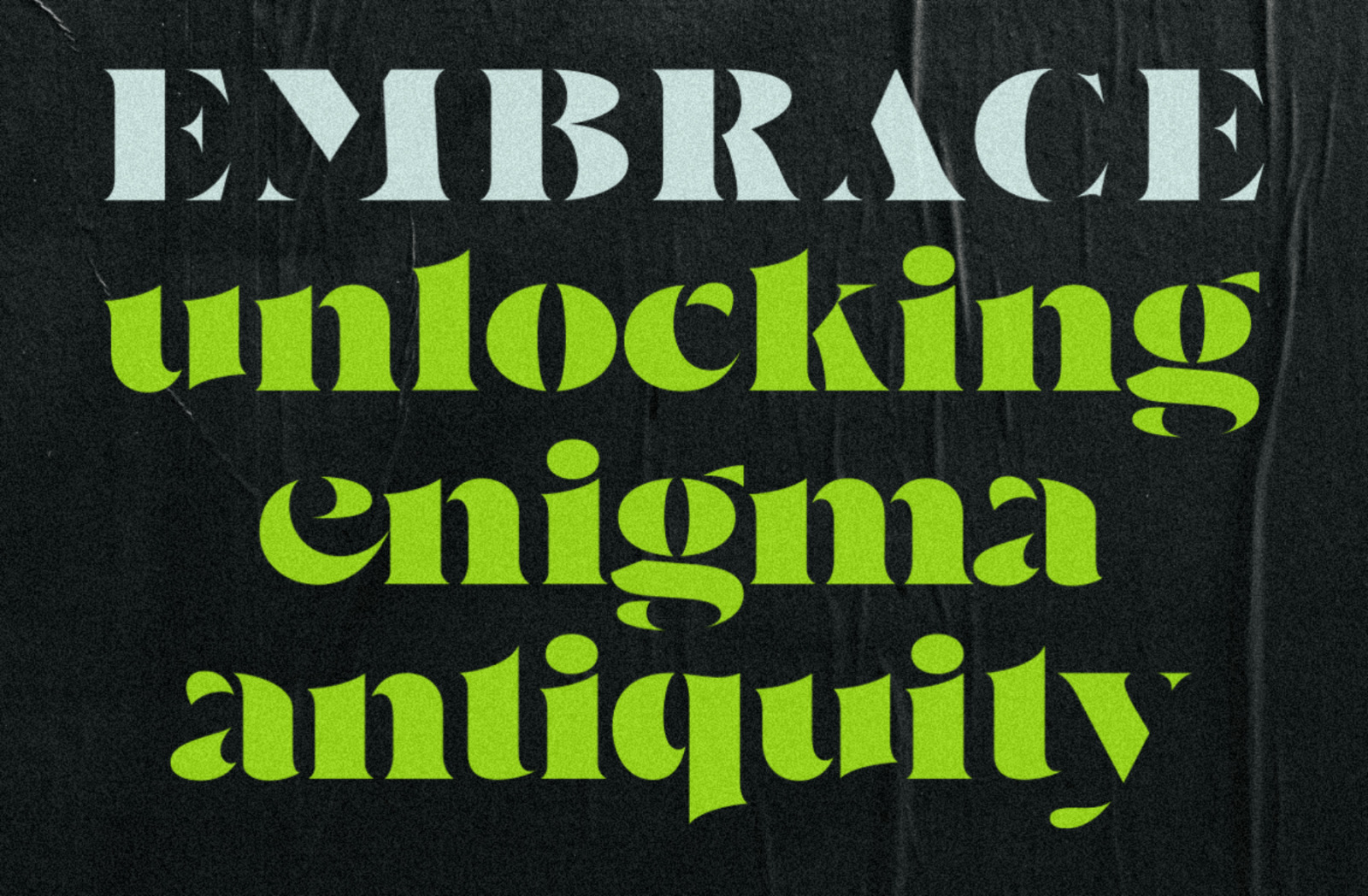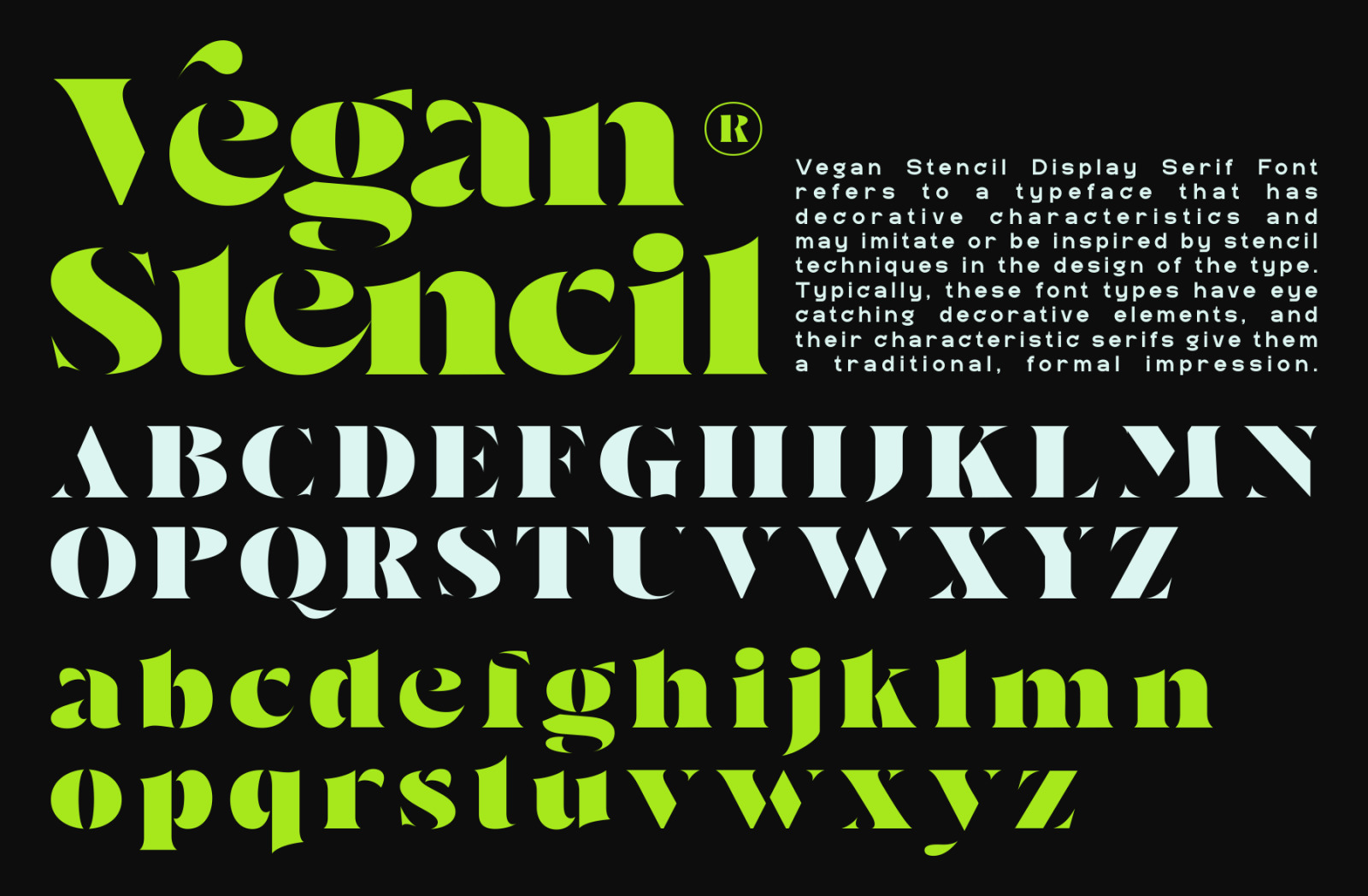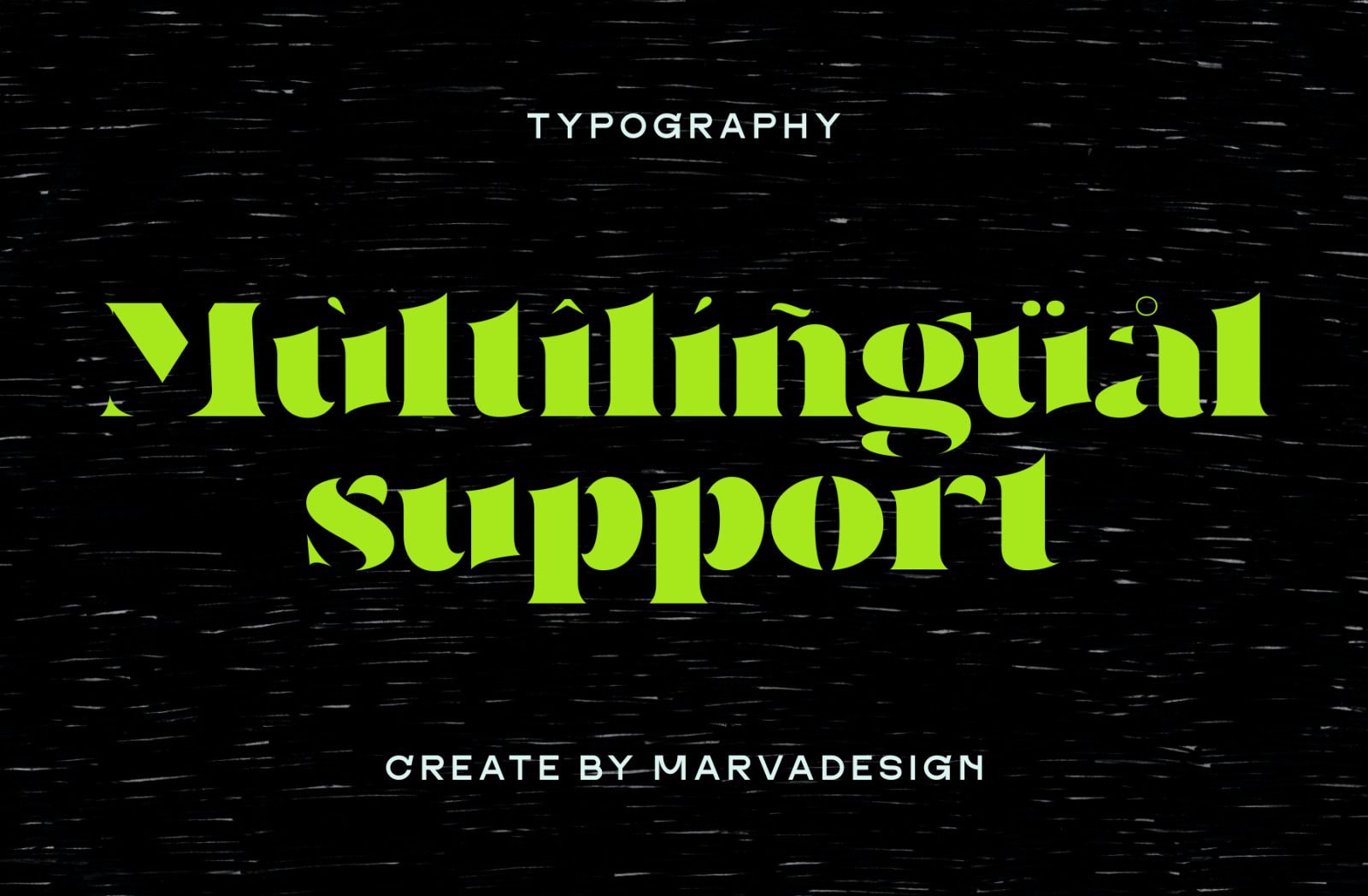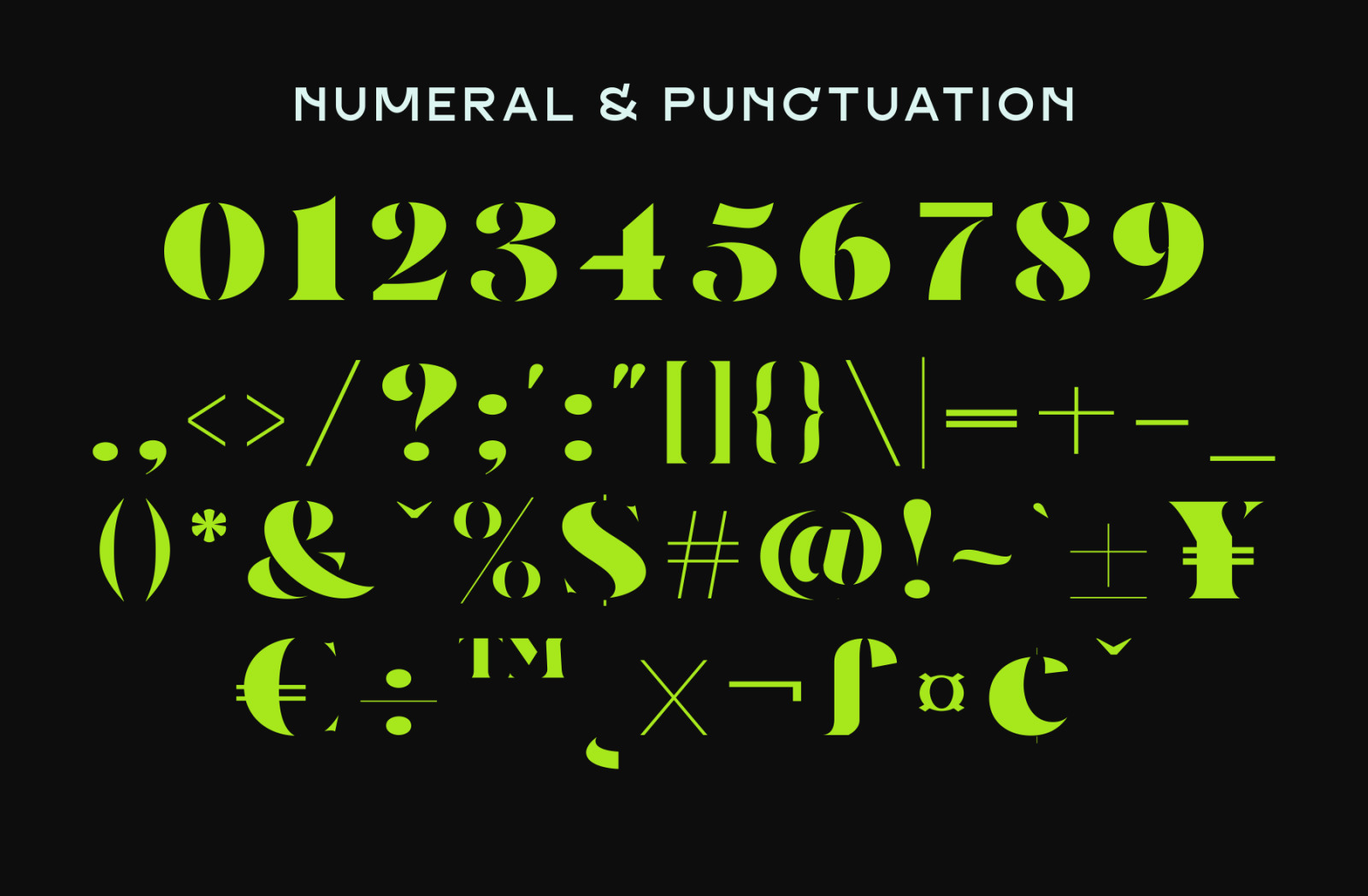
Vegan - A Display Stencil Font
Introducing our new product **Vegan Font** - A Display Stencil Font
**Vegan Font** - A Display Stencil Font is a bold and authentic display font. The font is suitable for any branding project like logo, Template Design, Product and many more. outstanding in a wide range of contexts.